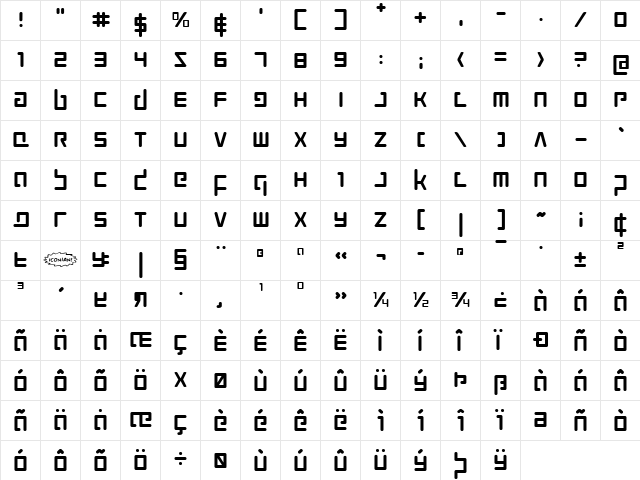
Prokofiev Regular
Design Context for Prokofiev Typeface
Prokofiev is a composed and adaptable typeface that performs quietly and consistently across a wide range of design contexts.